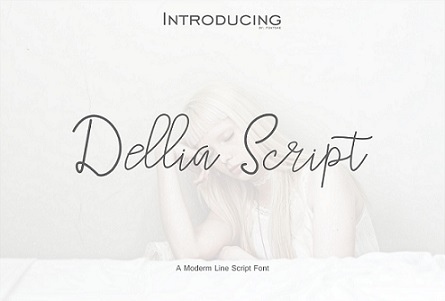
Dellia Font
This refined script typeface is perfect for luxury wedding invitations, high-end fashion branding, boutique beauty products, elegant stationery collections, premium jewelry packaging, sophisticated restaurant menus, upscale spa materials, and graceful lifestyle brand communications.
What makes this font exciting is its exquisite balance of feminine elegance and contemporary sophistication that creates an instantly recognizable luxury aesthetic through flowing curves and delicate flourishes. The handcrafted quality evokes artisanal excellence and personal attention to detail, while the graceful proportions ensure exceptional readability across various applications from intimate personal correspondence to upscale commercial branding.
The Dellia Font family includes regular and bold weights, along with decorative swashes, elegant ligatures, and ornamental elements that enhance the script's luxurious appeal for comprehensive high-end design applications.
The captivating personality of Dellia Font emerges through its graceful flow and delicate character details that reflect the finest traditions of European penmanship and calligraphic artistry. Each letterform displays meticulous attention to stroke variation and elegant connections that create visual poetry and emotional resonance. This exceptional craftsmanship makes it particularly suitable for luxury perfume labels, fine jewelry advertisements, exclusive member clubs, and prestigious award ceremonies requiring typography that communicates heritage, exclusivity, and uncompromising feminine sophistication.
Creative professionals will find this font invaluable for establishing emotional connections with discerning female audiences who appreciate authentic luxury and artistic excellence. From champagne brand campaigns to luxury spa branding, from high-end real estate materials to exclusive fashion show invitations, Dellia Font maintains its aristocratic character while adapting to diverse luxury applications. The font's extensive stylistic alternates, contextual ligatures, and decorative flourishes provide exceptional creative flexibility, ensuring designers can achieve the perfect balance of opulence and elegance for premium brand communications that celebrate feminine grace, artistic refinement, and the timeless beauty of handcrafted excellence across all luxury market segments.